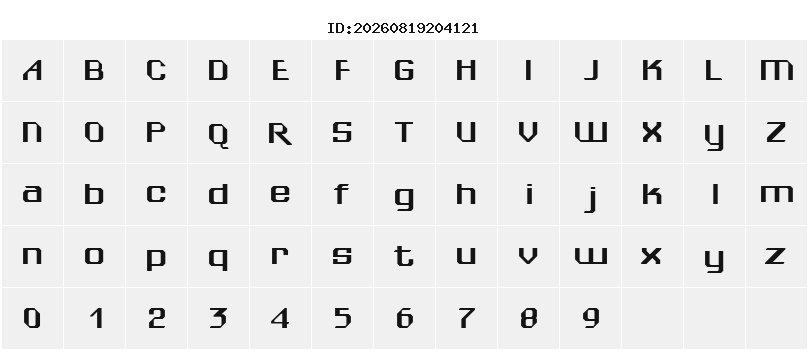
Sheila Preview
• Font Name: Sheila
• Font ID: Altsys Fontographer 3.5 Sheila Regular
• Full Font Name: Sheila Regular
• Version: Altsys Fontographer 3.5 4/06/93
• PostScript Name: Sheila Regular
About Sheila.ttf
Sheila.ttf is a modern, elegant sans-serif font designed for ultimate readability and visual harmony. Perfect for branding, headlines, web design, and print materials.